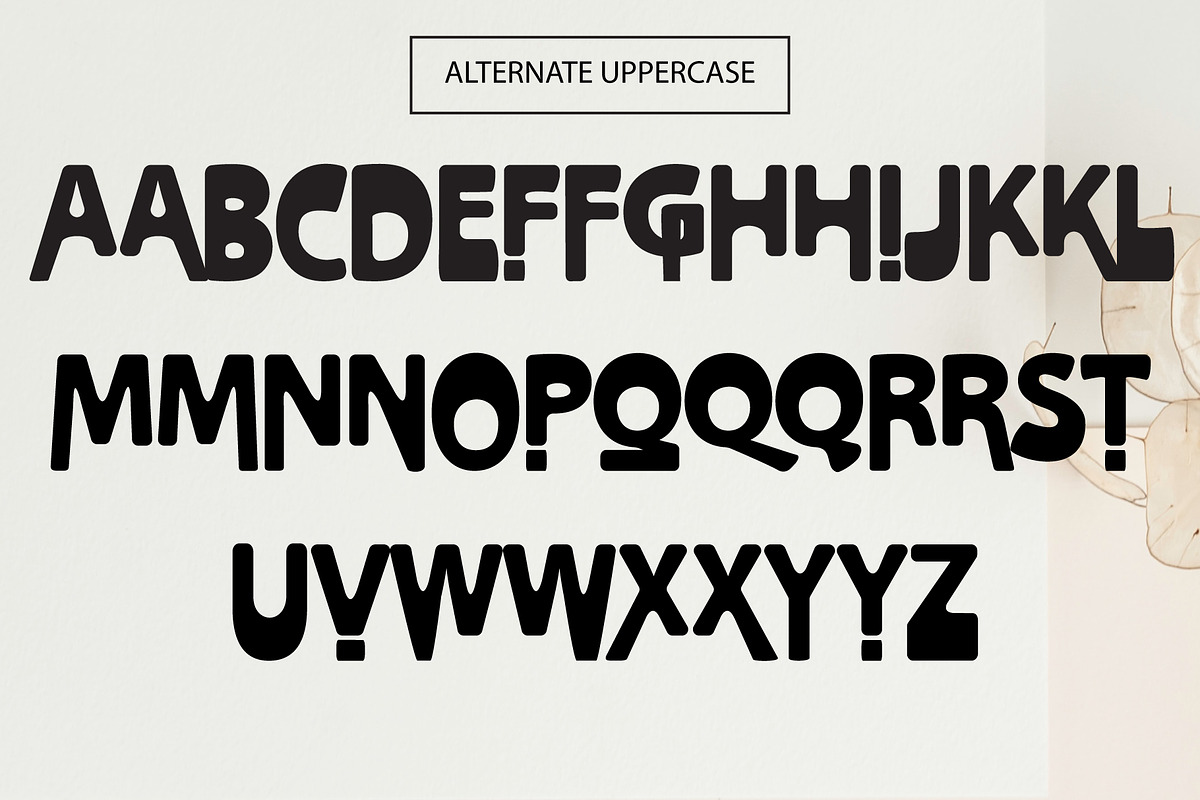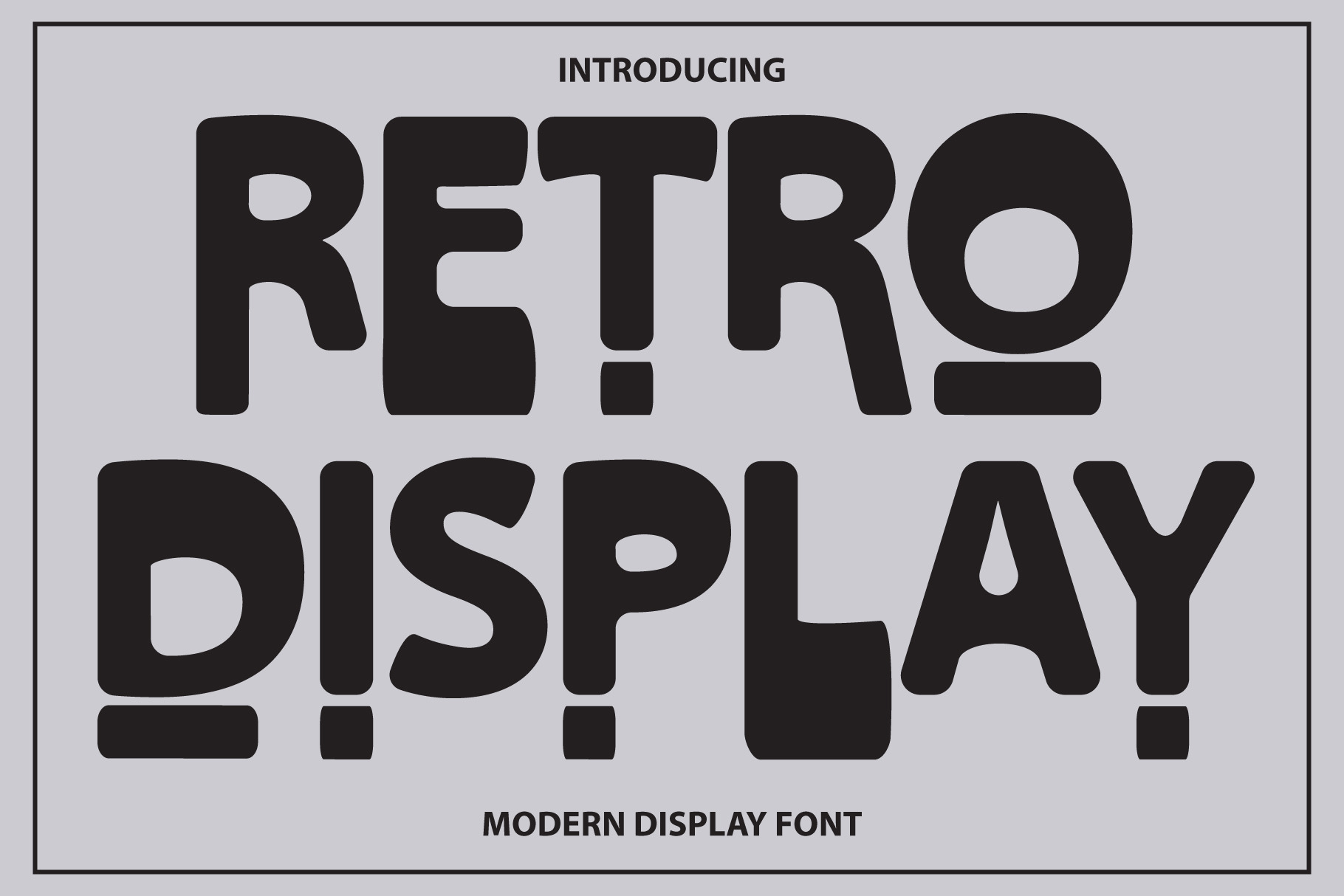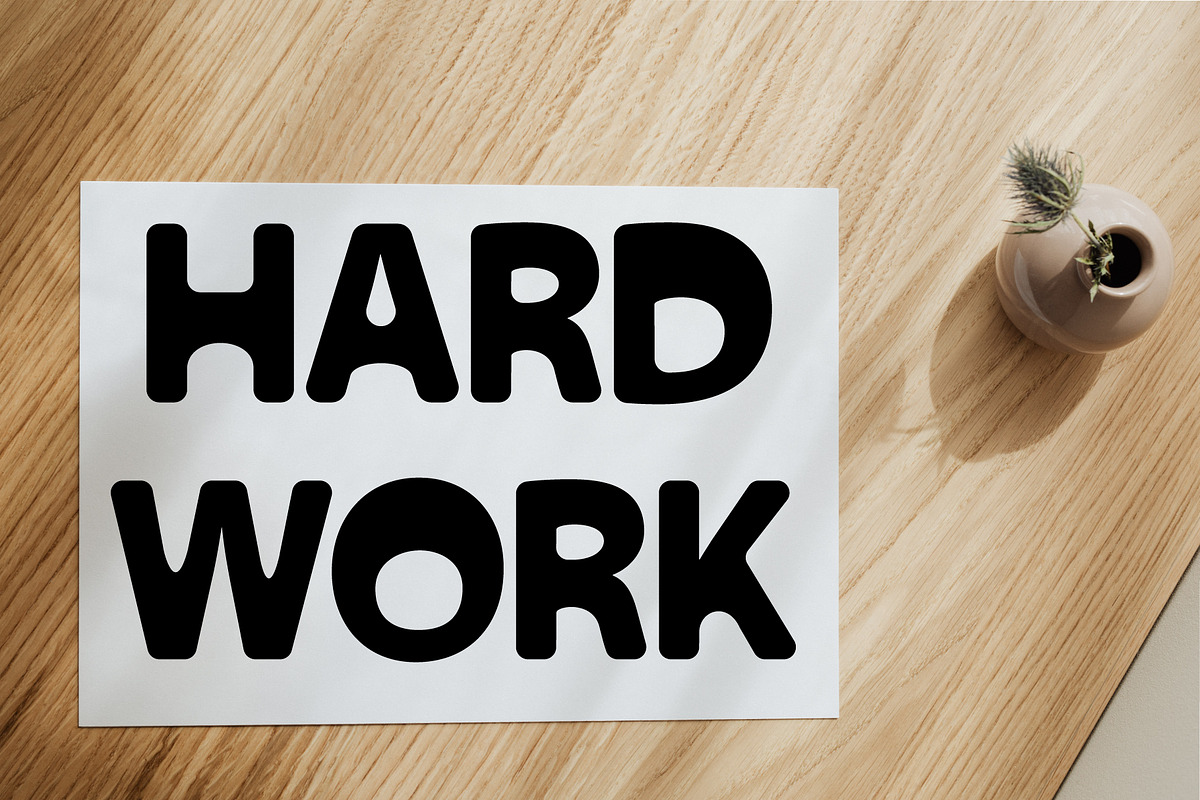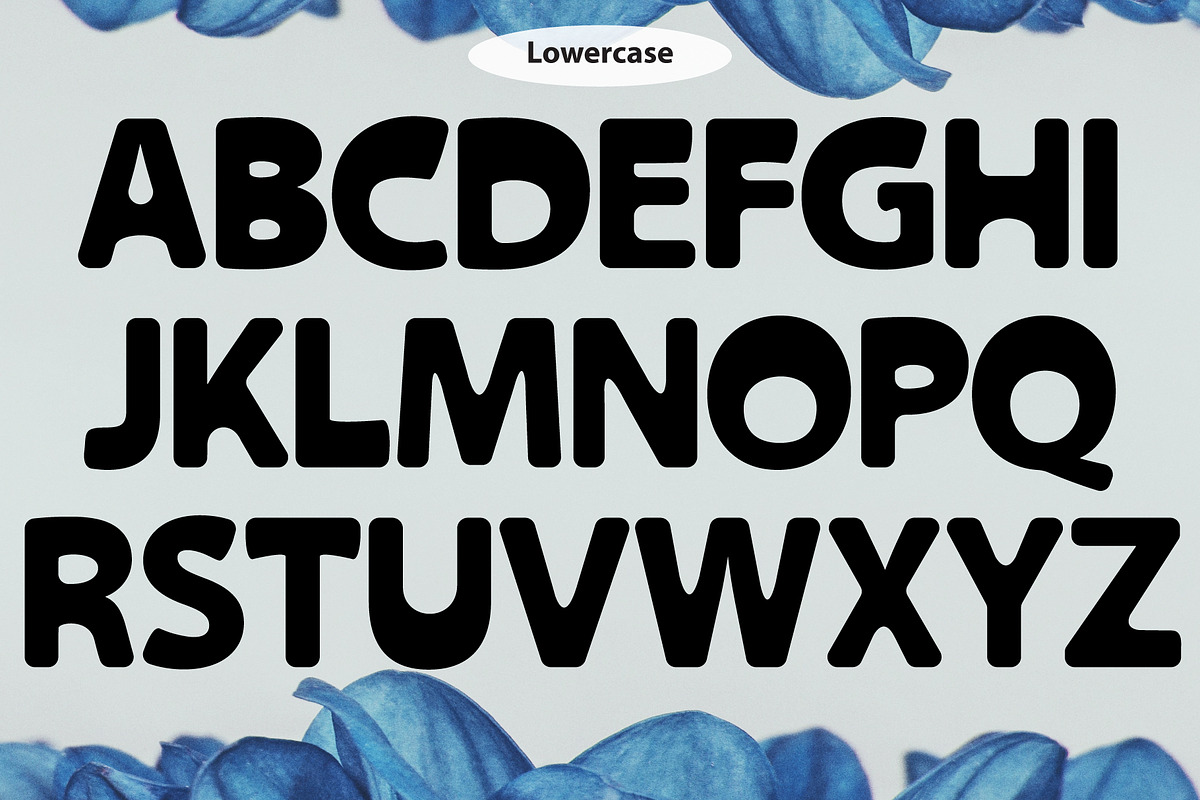
Retro Display Bold Font
Introducing Retro Display, a bold and expressive typeface designed to capture attention and evoke a sense of nostalgia with a modern twist. Engineered for high-impact visuals, this font is ideal for a wide range of creative applications—from cartoon titles and comic strips to television branding, entertainment media, and product packaging.
Retro Display blends retro aesthetics with contemporary clarity, making it a versatile choice for designers seeking a playful yet professional look. The exaggerated curves and thick letterforms ensure legibility at any size, while its whimsical undertones add personality and energy to your compositions.
Cartoon titles and comic headers
Branding for entertainment and media companies
TV and streaming service graphics
Product name and packaging design
Posters, flyers, and promotional materials
Game design and children's content
Vintage-inspired marketing visuals